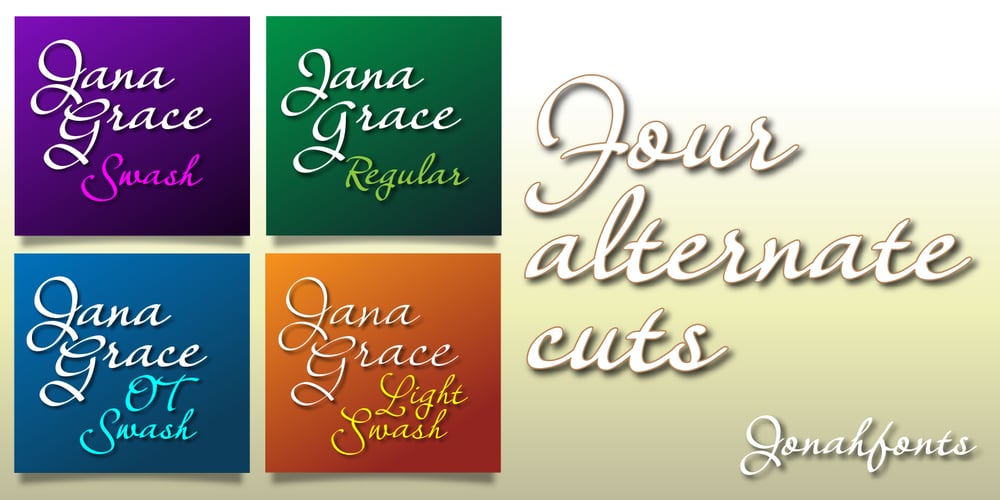
Janagrace
Janagrace font
Janagrace Font Family was designed by published by Jonahfonts. Janagrace contains 4 styles and family package options. Janagrace is designed for birthday, holiday cards and can be used effectively in other applications for that calligraphy appearance. Regular: Contain ONLY Regular-Caps. Swash: Swash-Caps with NO Regular Caps. OT Swash: Contain BOTH Regular and Swash-Caps. Swash LIGHT: Swash-Caps with NO Regular Caps. Janagrace, Agile, Charming and Lovely.